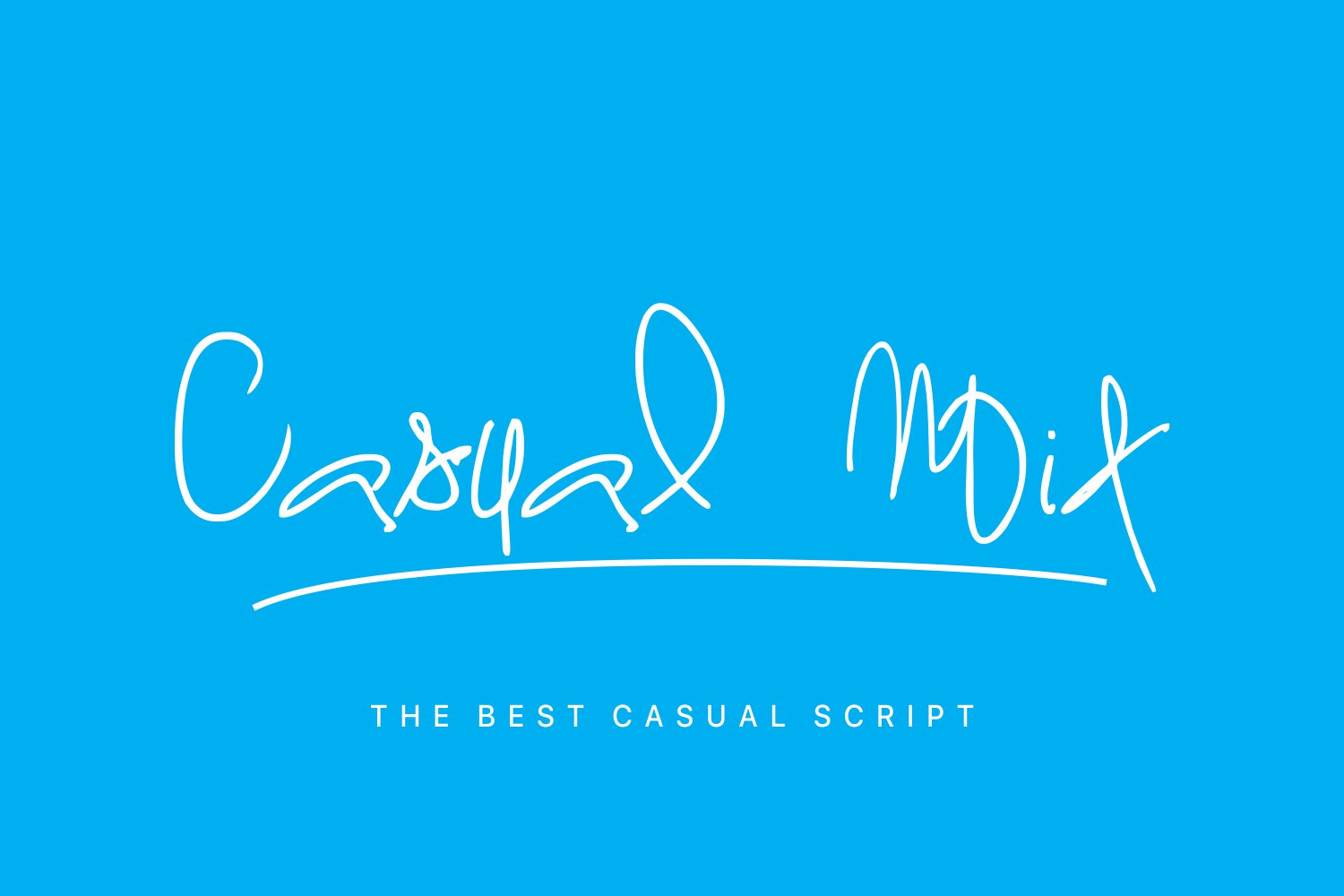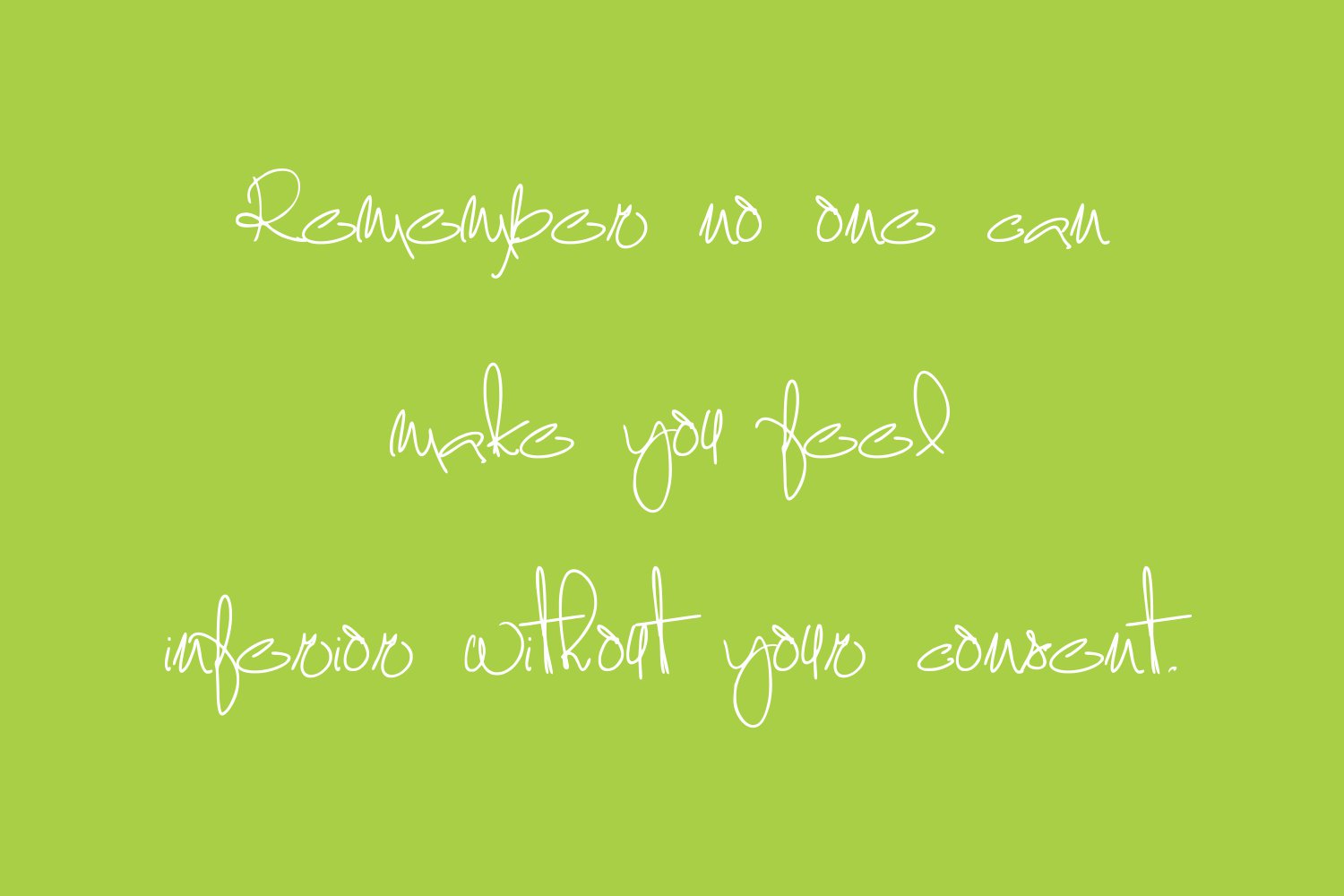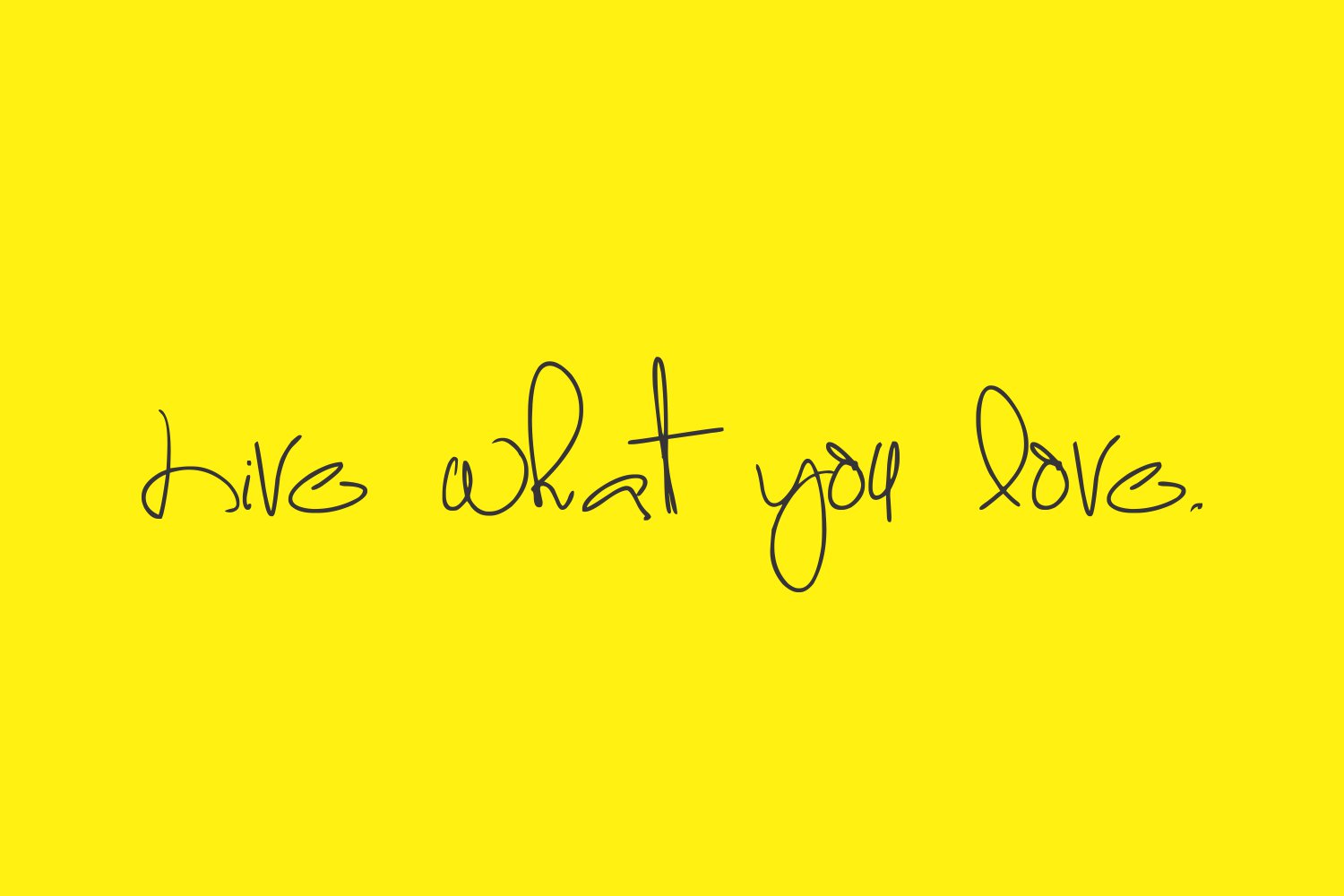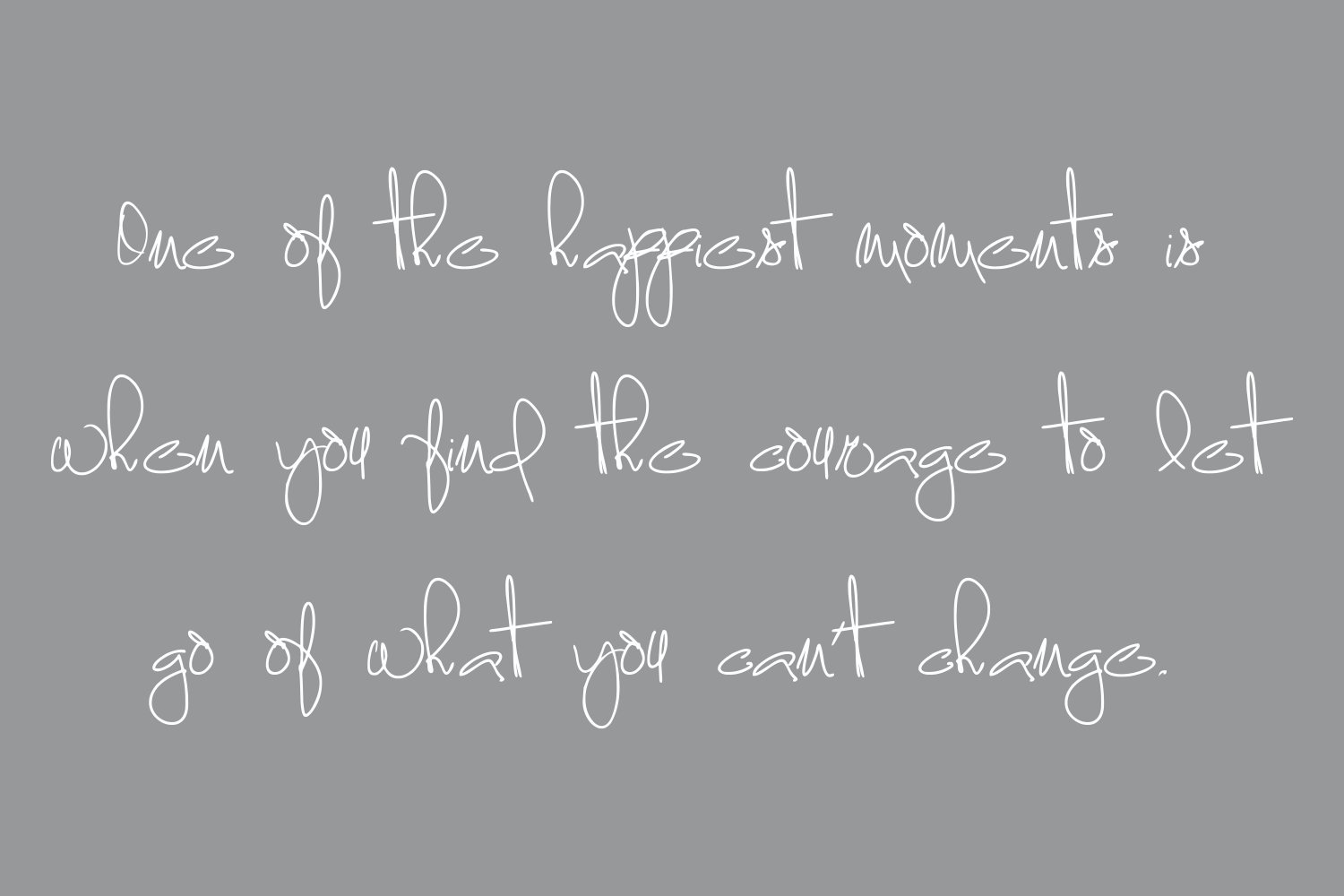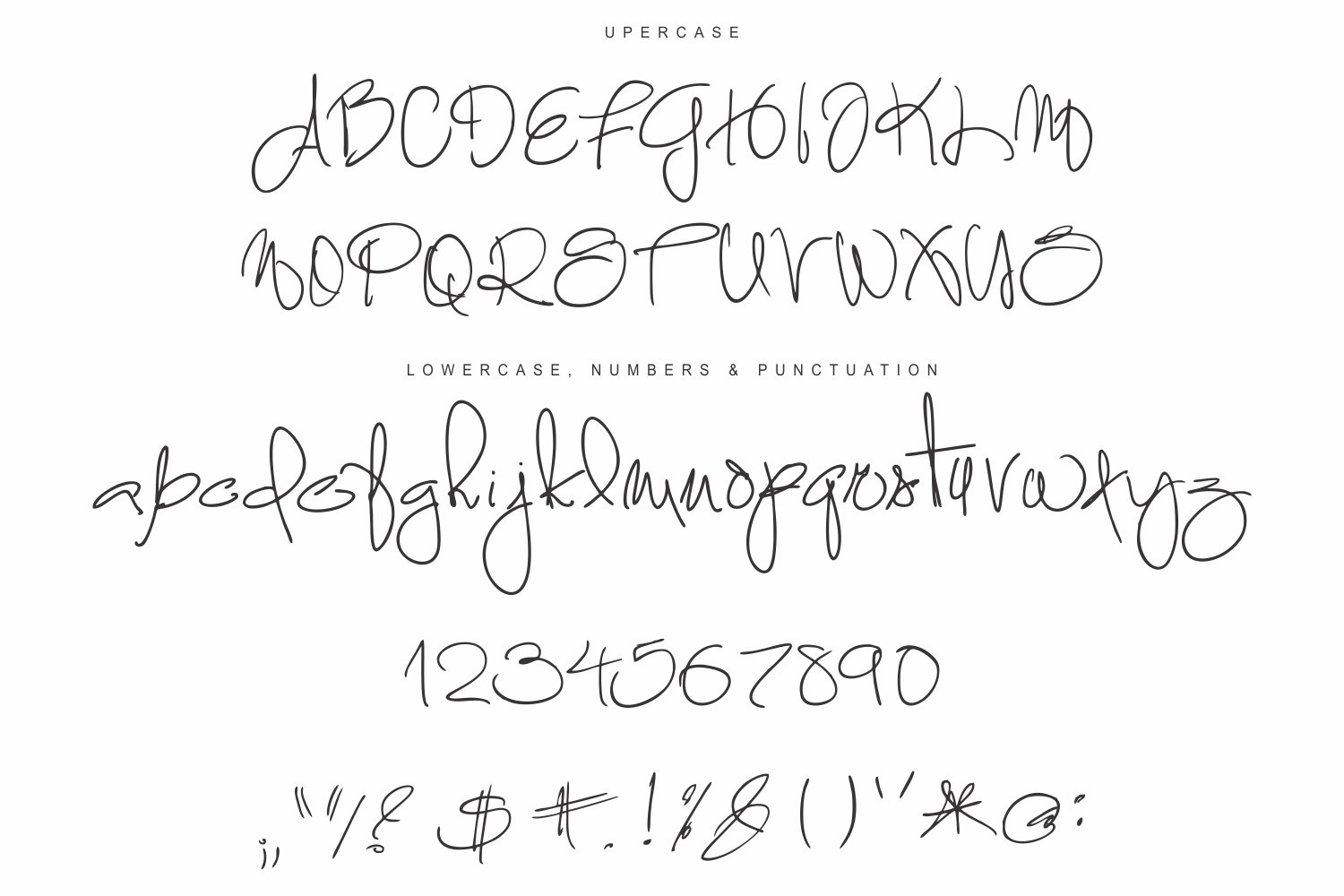
Casual Mix Font
About Casual Mix Font
Casual Mix is a hand made font, with uppercase letters. An elegant and easy-to-read font that can add some charm and spirit to your design projects.